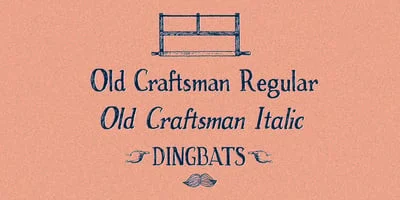
Craftsman Font
Craftsman Font is ideal for traditional woodworking shops, artisan furniture makers, heritage craft workshops, handmade product retailers, skilled trades companies, authentic maker studios, and quality craftsmanship brands. This authentic typeface embodies skilled artisanship and traditional craftsmanship values, bringing handcrafted authenticity and artisan heritage to any design project celebrating skilled trades and traditional making techniques.
What makes Craftsman Font exciting is its compelling combination of artisan skill and traditional craftsmanship that perfectly captures the essence of handmade excellence and skilled trade heritage. The font features solid letterforms with tool-inspired details and craftsman proportions that evoke both the precision of skilled hands and the authenticity of traditional workshop environments. Its reliable character appeals to quality-conscious consumers while maintaining excellent readability for both craft documentation and artisan brand applications.
The Craftsman Font family includes regular and bold weights with complementary distressed variations and craft ornamental elements. The character set features artisan ligatures, tool symbols, workshop alternates, and craftsmanship decorative accents that enhance the font's authentic appeal. Extended character support includes traditional craft symbols and maker icons for genuine artisan workshop and skilled trades applications.
Whether you're designing artisan craft brands, creating traditional workshop materials, or developing skilled trades content, Craftsman Font provides exceptional authenticity and versatility. This reliable typeface transforms ordinary text into meaningful craft experiences that celebrate skilled artisanship while establishing trusted brand recognition in competitive handmade goods and traditional craftsmanship marketplaces.